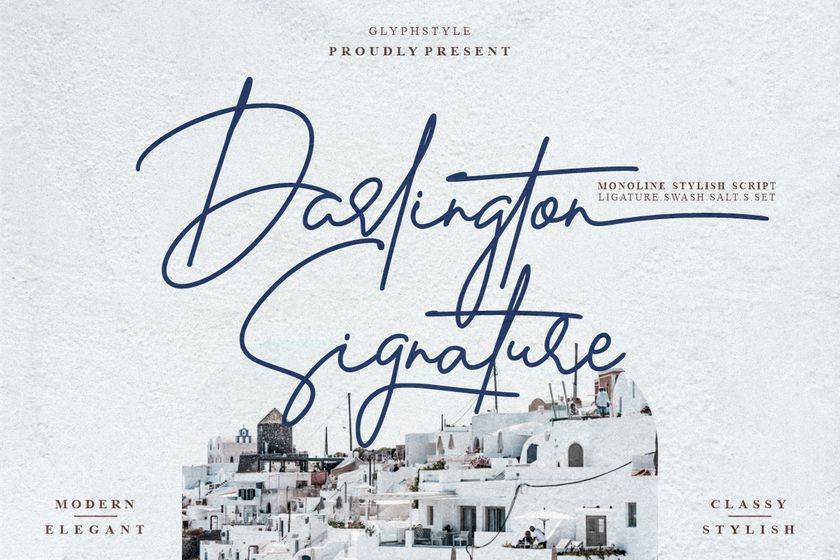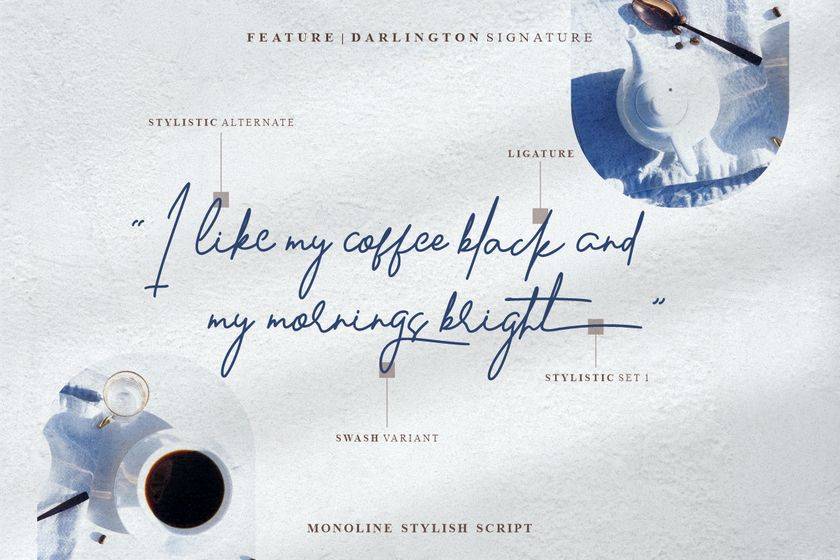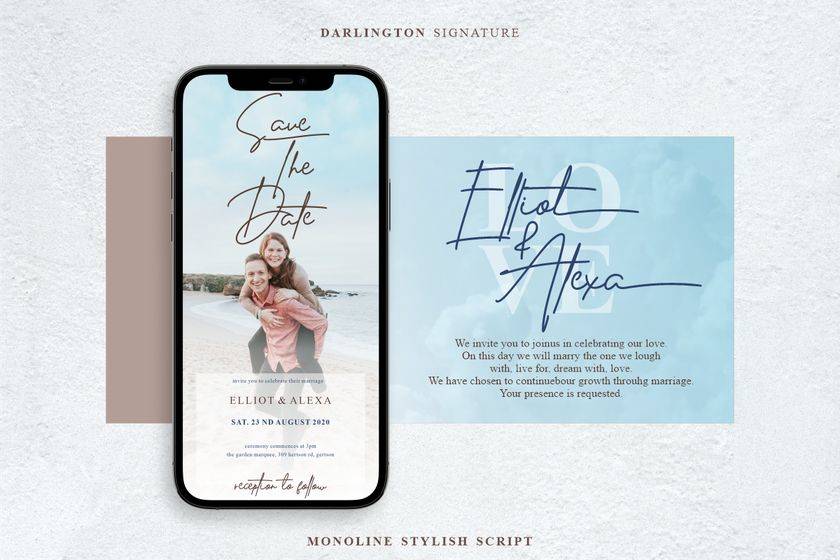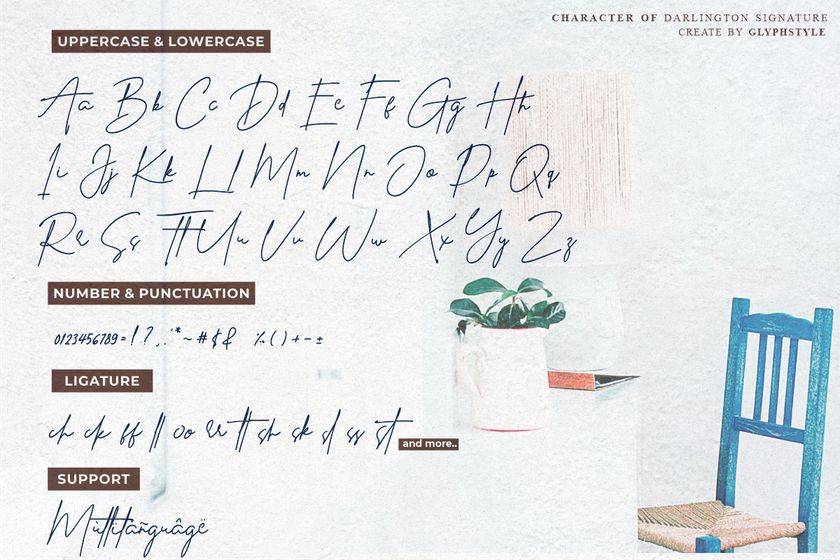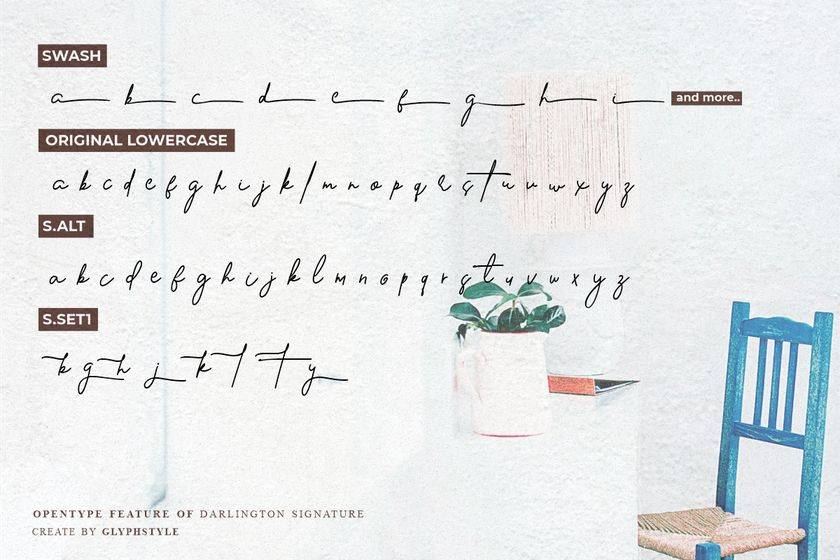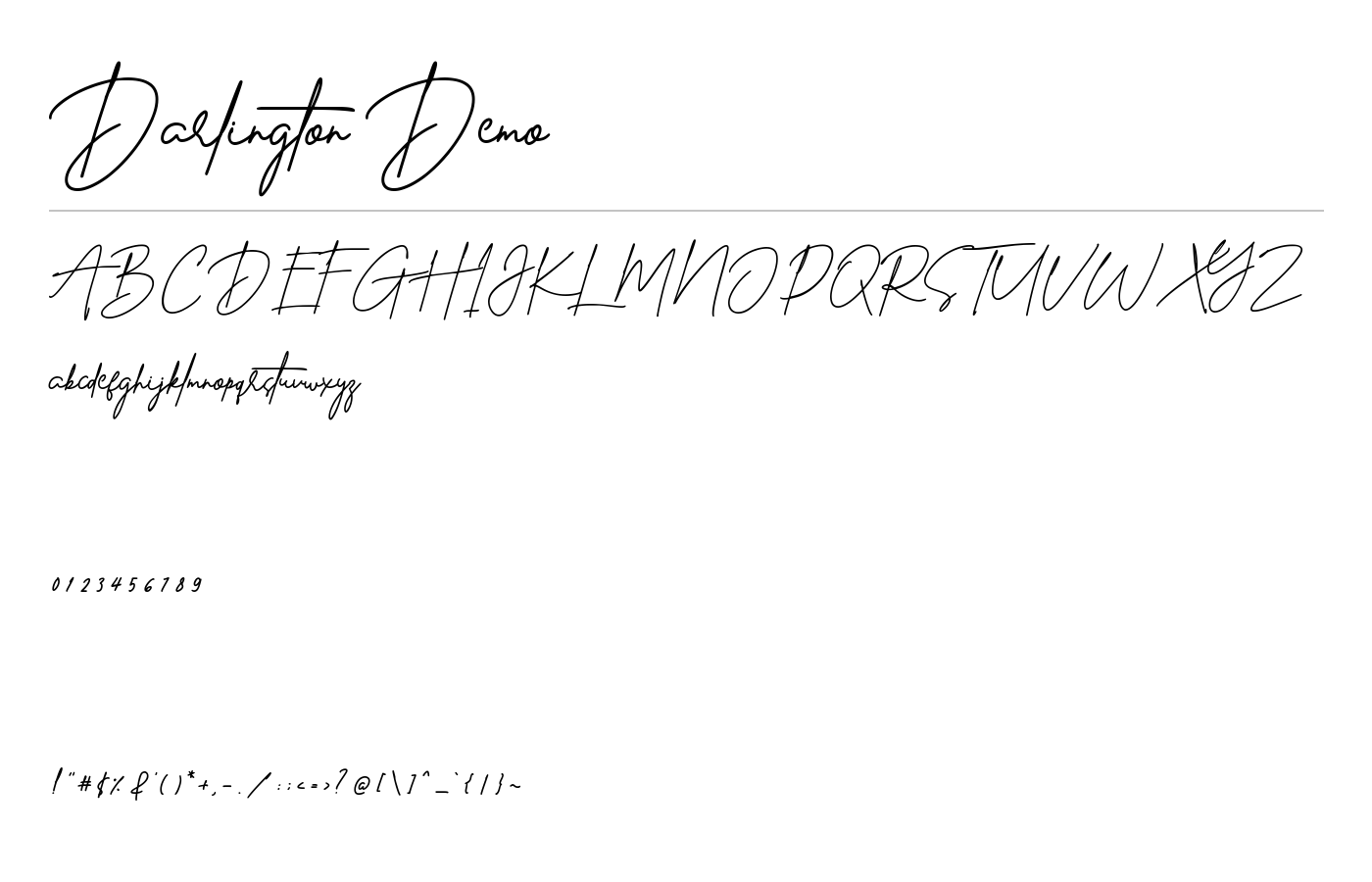
Darlington Signature is a delicate, modern script font that mimics elegant, flowing handwriting with a thin, airy stroke. Its casual yet refined character makes it ideal for personal branding, invitations, and stylish logos, conveying a sense of sophistication and approachability. This font works beautifully where a natural signature-like touch is desired, adding charm without overpowering the design.
Darlington Signature Font
About Darlington Signature Font
| Font family | Darlington Signature Font |
| Designer | GlyphStyle |